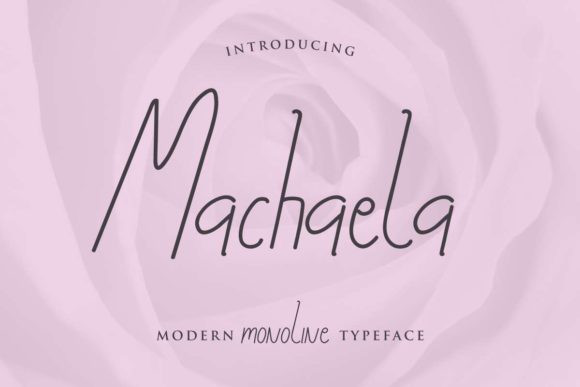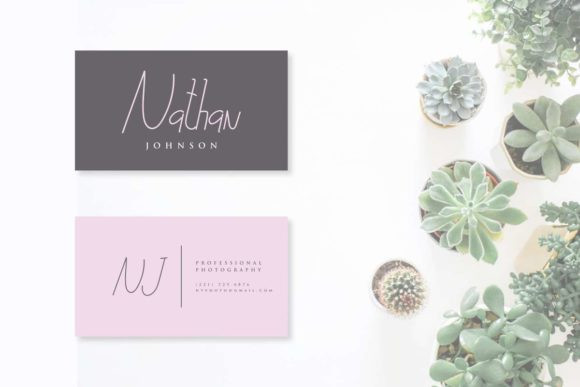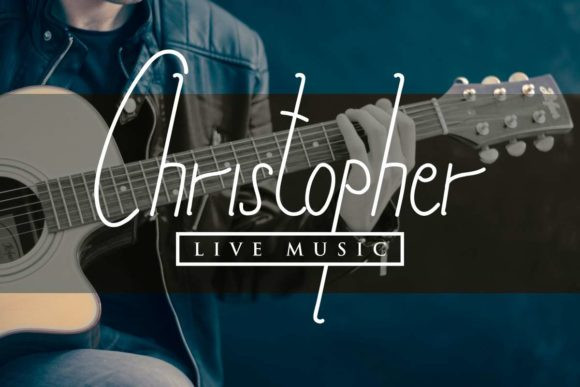
Machaela Font
Machaela Handwritten has a natural pen look that makes it look incredibly endearing and authentic. Whether you’re looking for fonts for Instagram or calligraphy scripts for DIY projects, this handwritten font will turn any creative idea into a true piece of art!